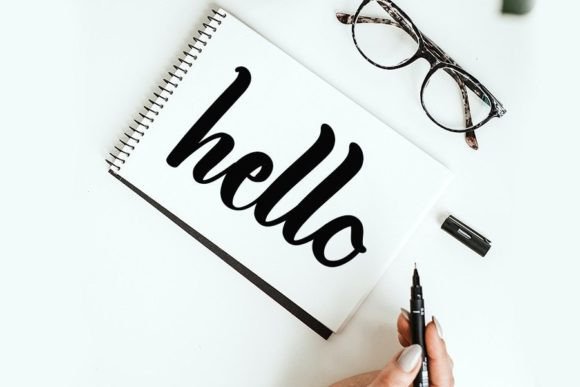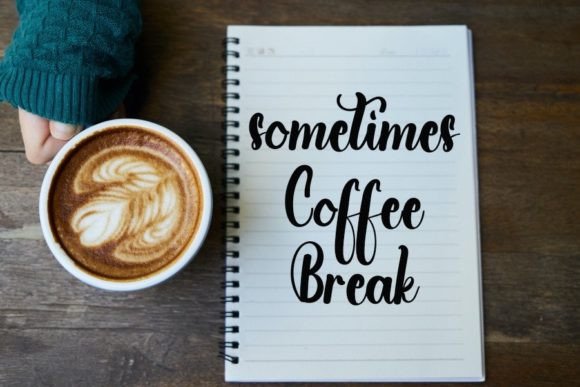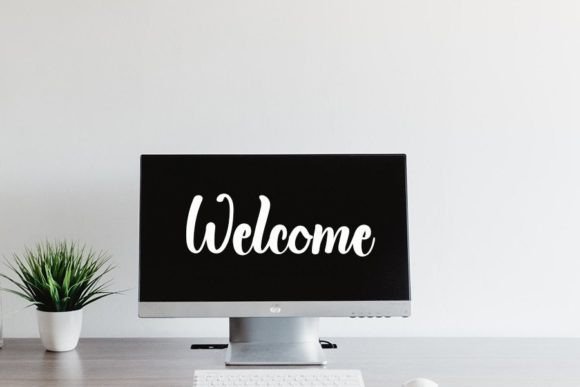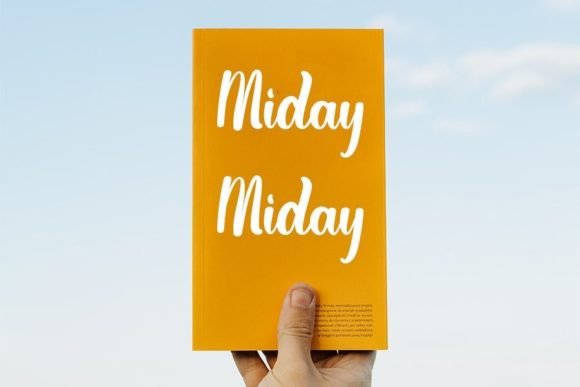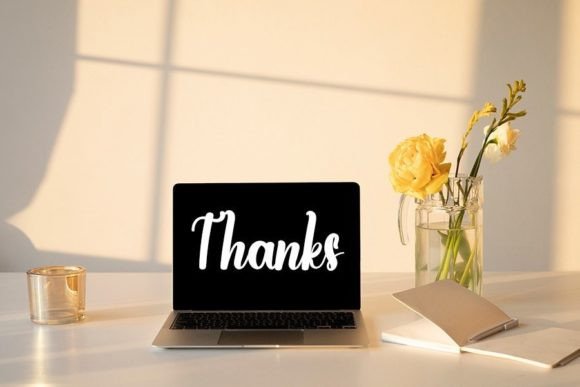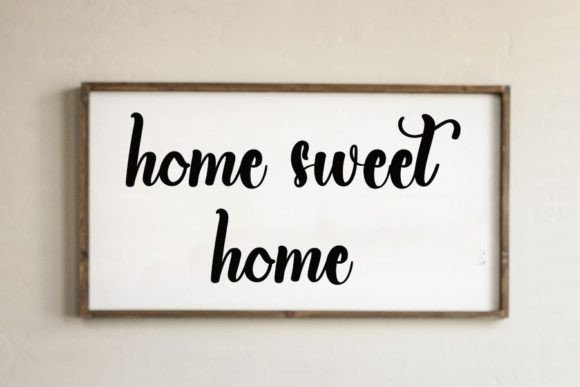
Minimalist Font
About Minimalist Font
“Minimalist” seems to be a neat and beautiful handwritten font with an elegant touch, offering a versatile and timeless style. Fonts with a minimalist approach often bring a sense of simplicity and sophistication to design projects.
The elegant touch of “Minimalist” suggests that it can be a suitable choice for a variety of creative projects. Whether you’re designing logos, invitations, or other visual elements, this font appears to have the potential to add a touch of refinement.
Fonts with distinct and timeless styles, like “Minimalist,” can play a crucial role in creating visually appealing and memorable designs. Their simplicity often conveys a sense of clarity and modernity, making them well-suited for contemporary design aesthetics.
Consider incorporating “Minimalist” into your favorite projects and exploring its distinct and timeless qualities. Whether you’re working on branding, stationery, or any creative design, “Minimalist” seems poised to contribute to a sleek and sophisticated visual appeal.